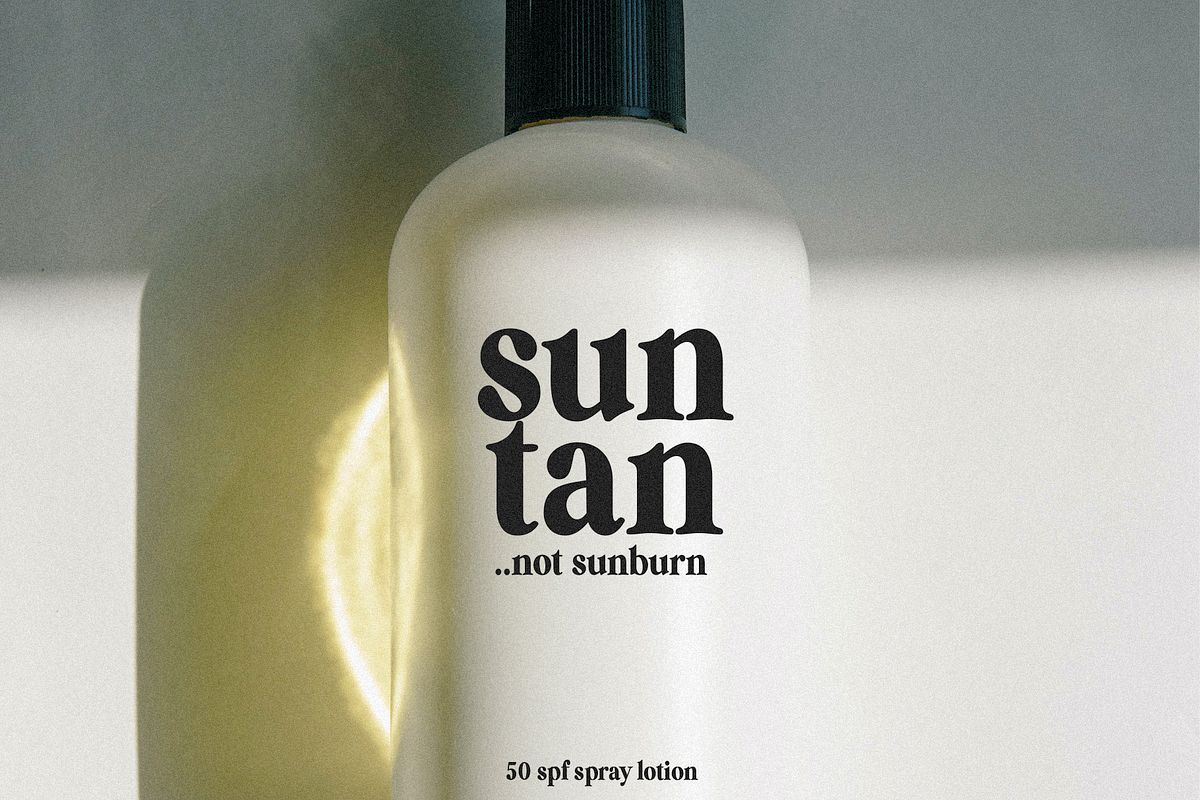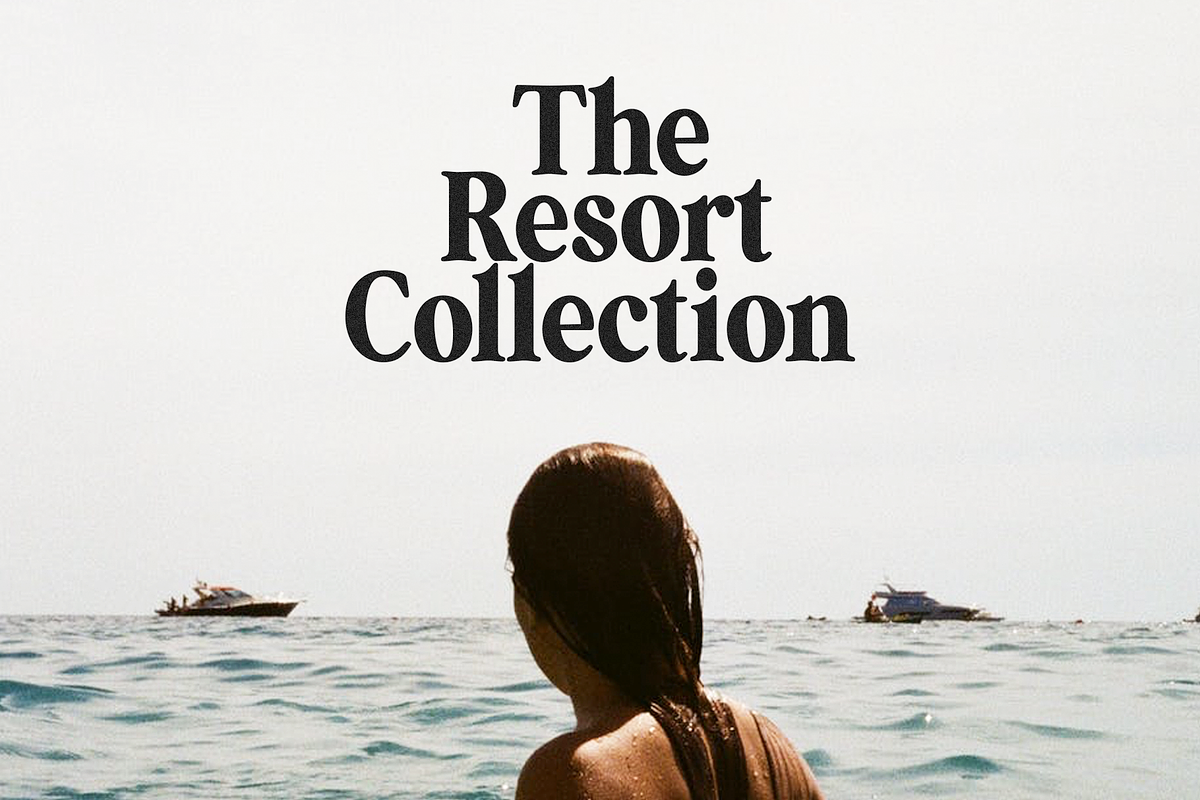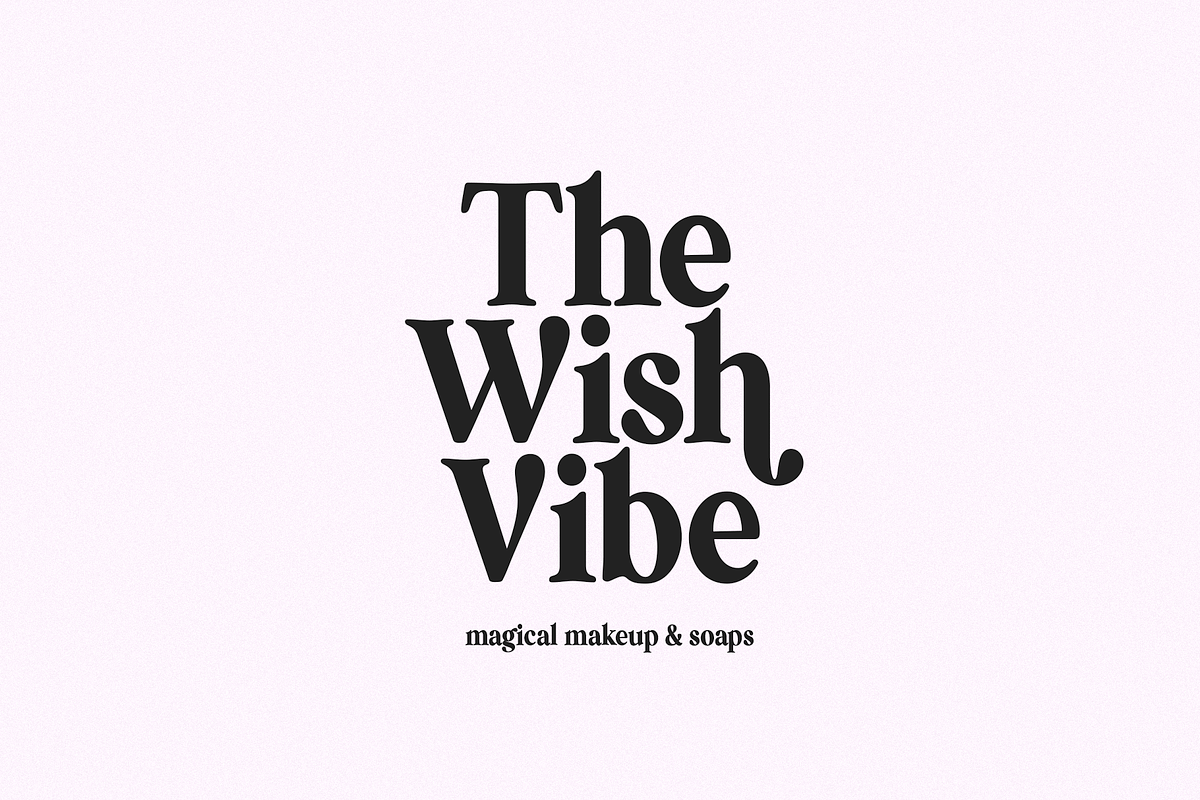
West Avenue Font
West Avenue is a classy serif font with a handful of curvy ligatures. Think Wild Mango with a twist! This font is both bold and elegant.. modern yet vintage.. either way, it is sure to bring attention to your brand and designs!
West Avenue includes alternate letters (letters with the curvy swashes). These letters are embedded into the font file and easily accessible in programs such as photoshop and illustrator. You can access these in more basic design programs but you will need to use your character map or font book.
West Avenue Font – Modern Serif